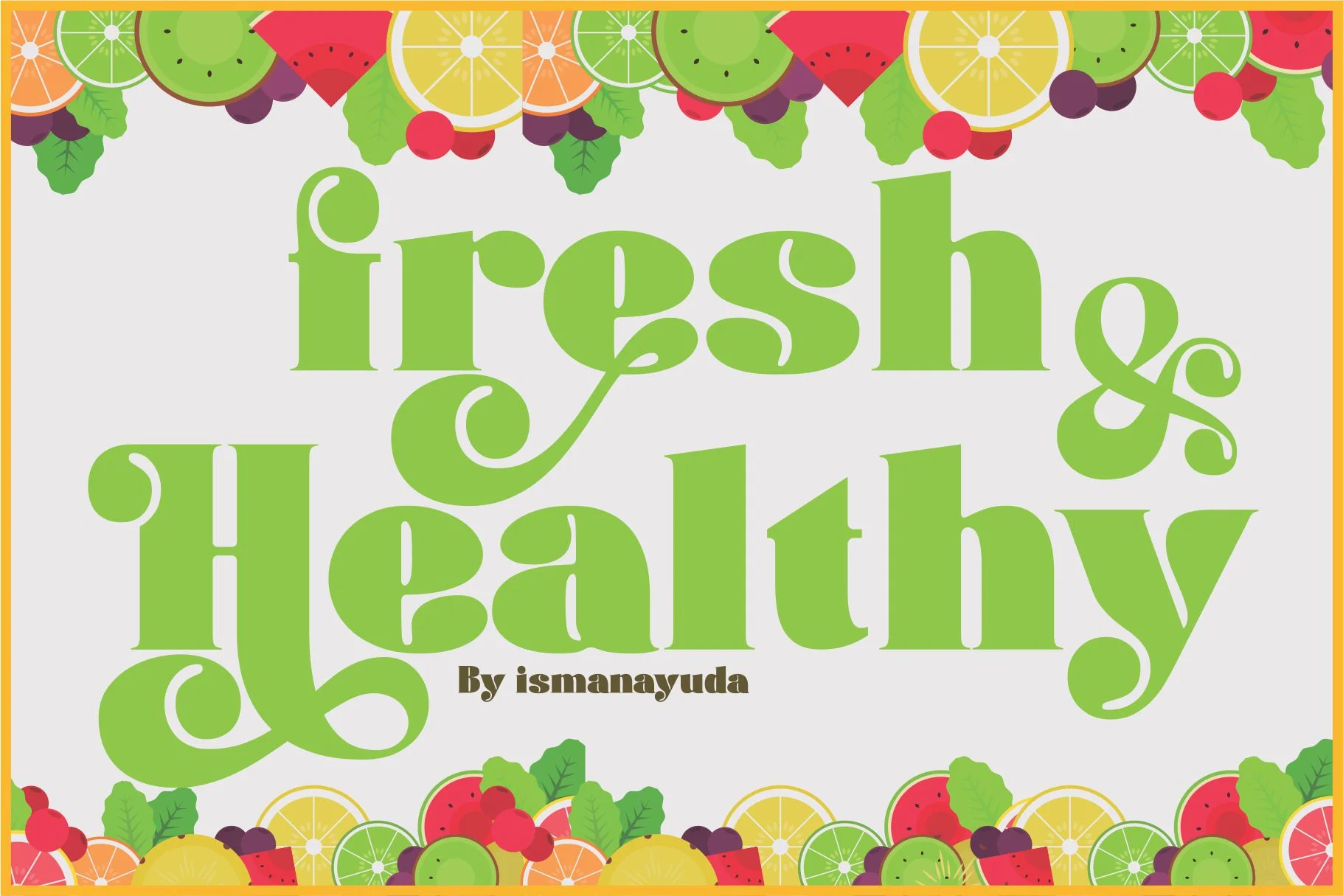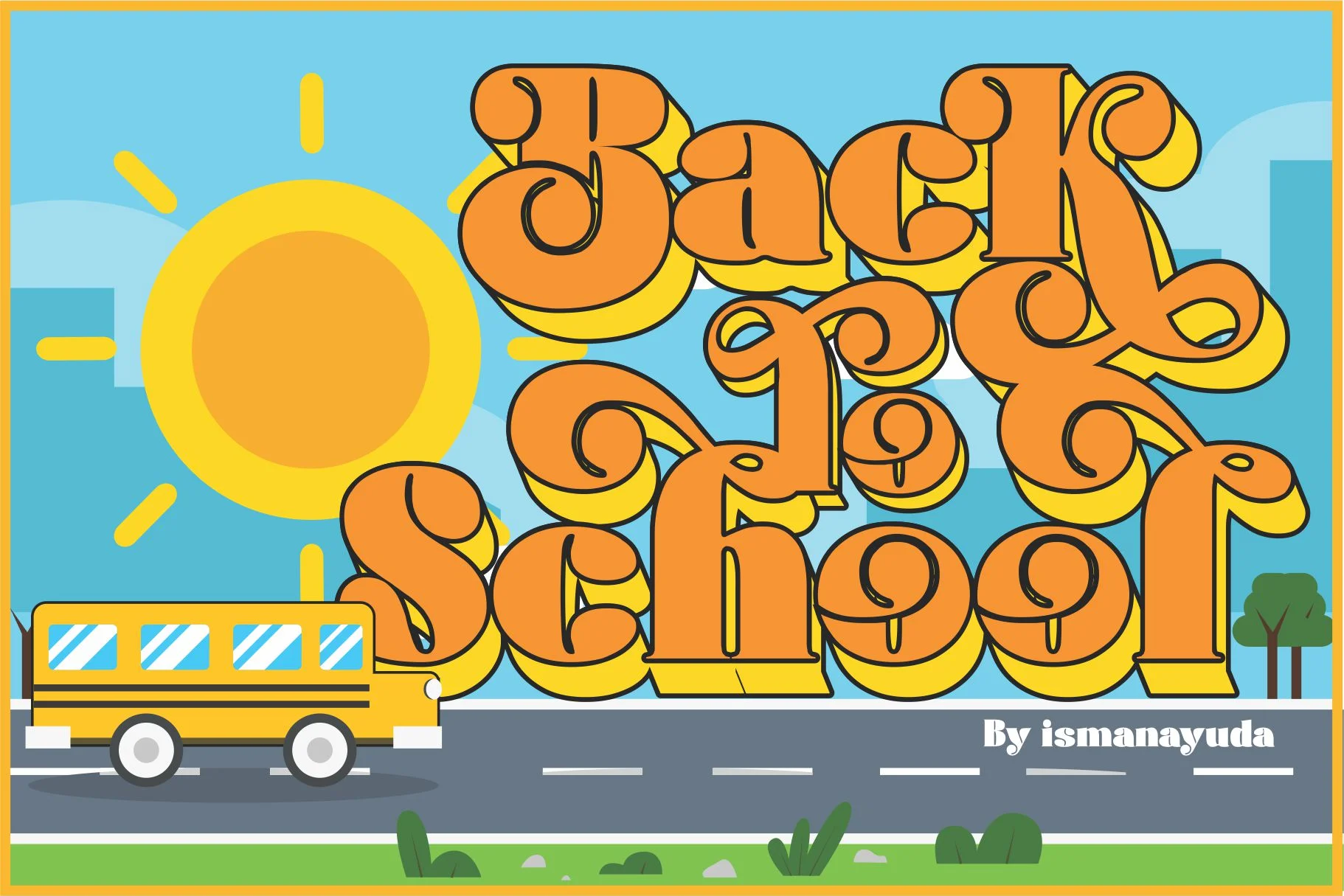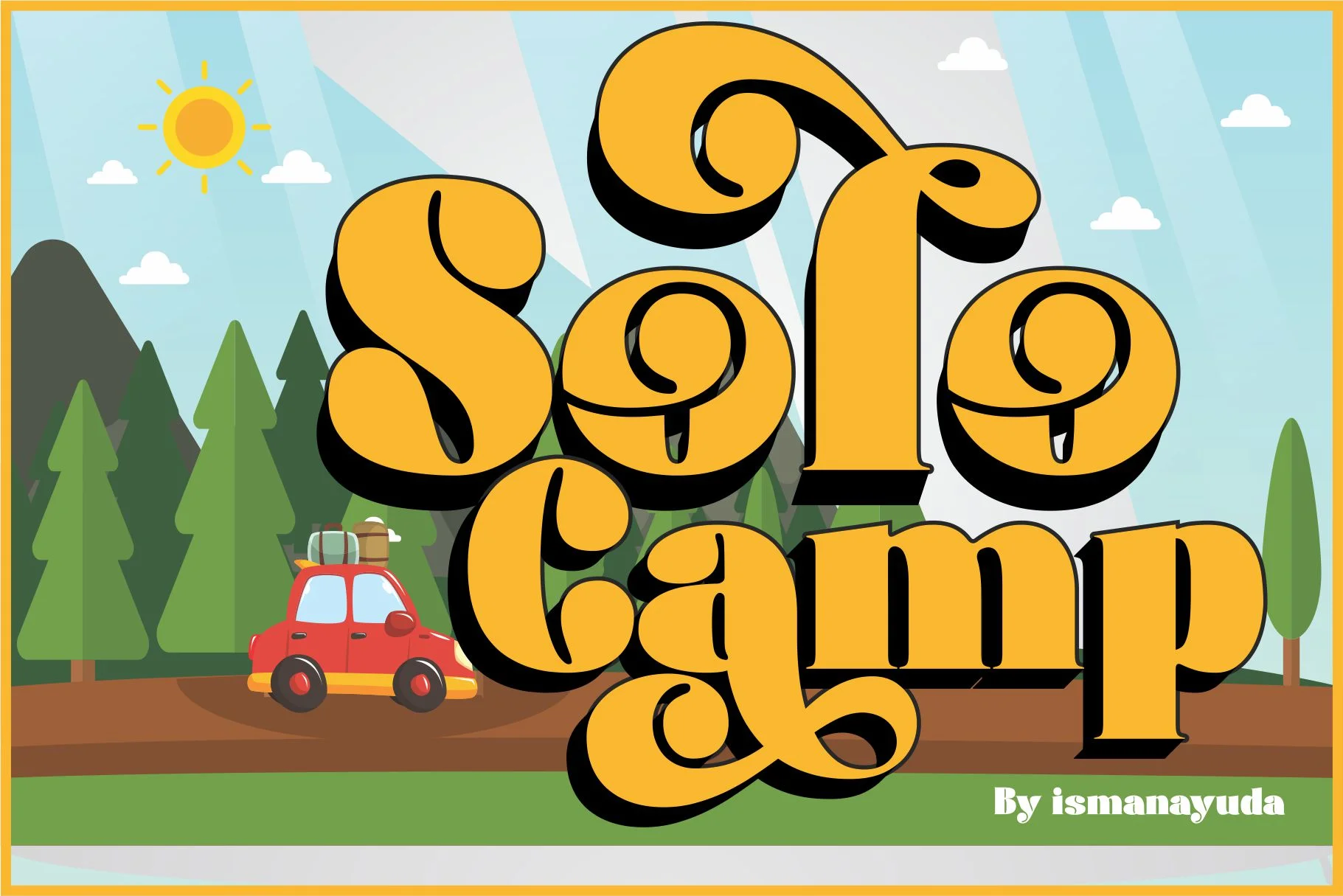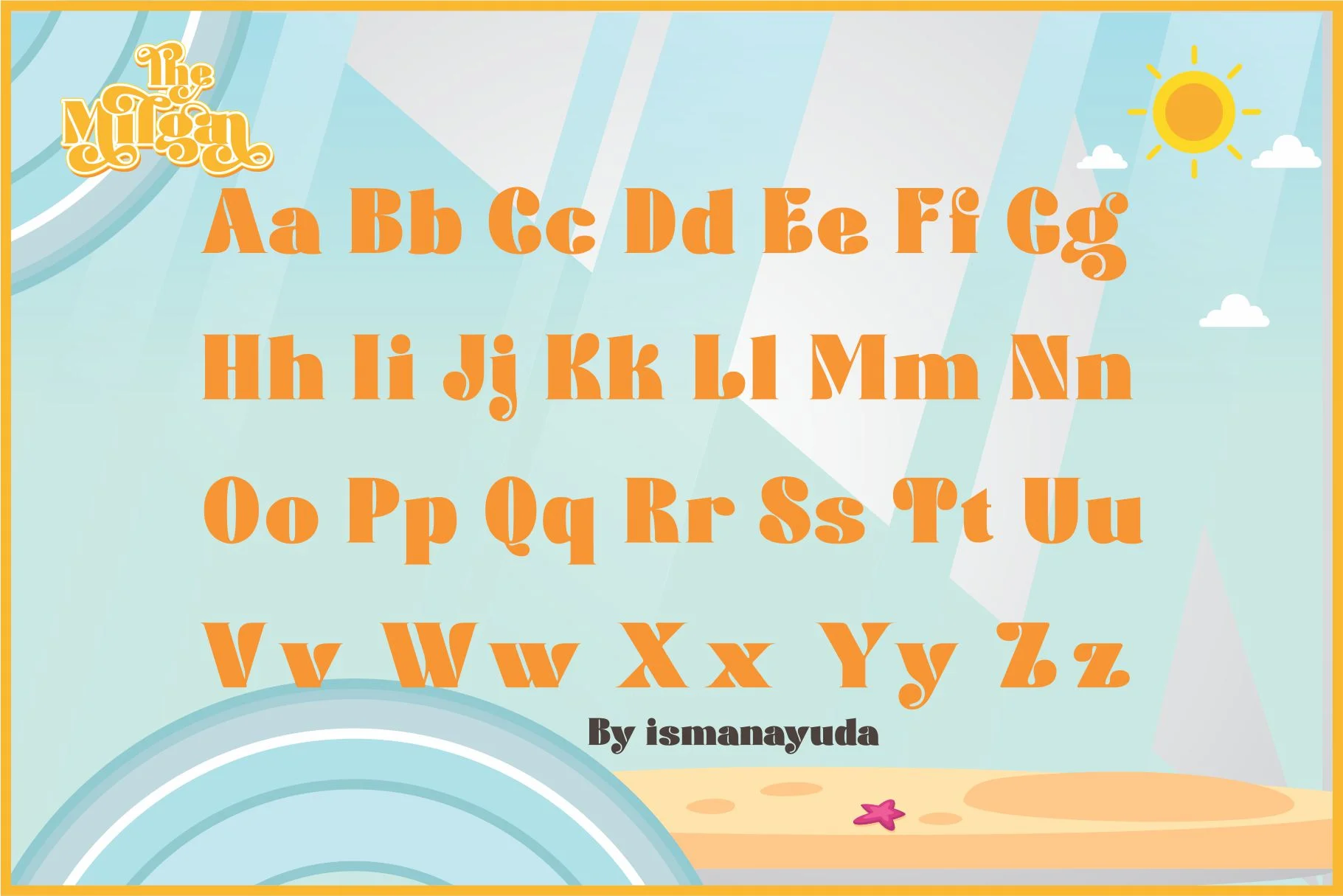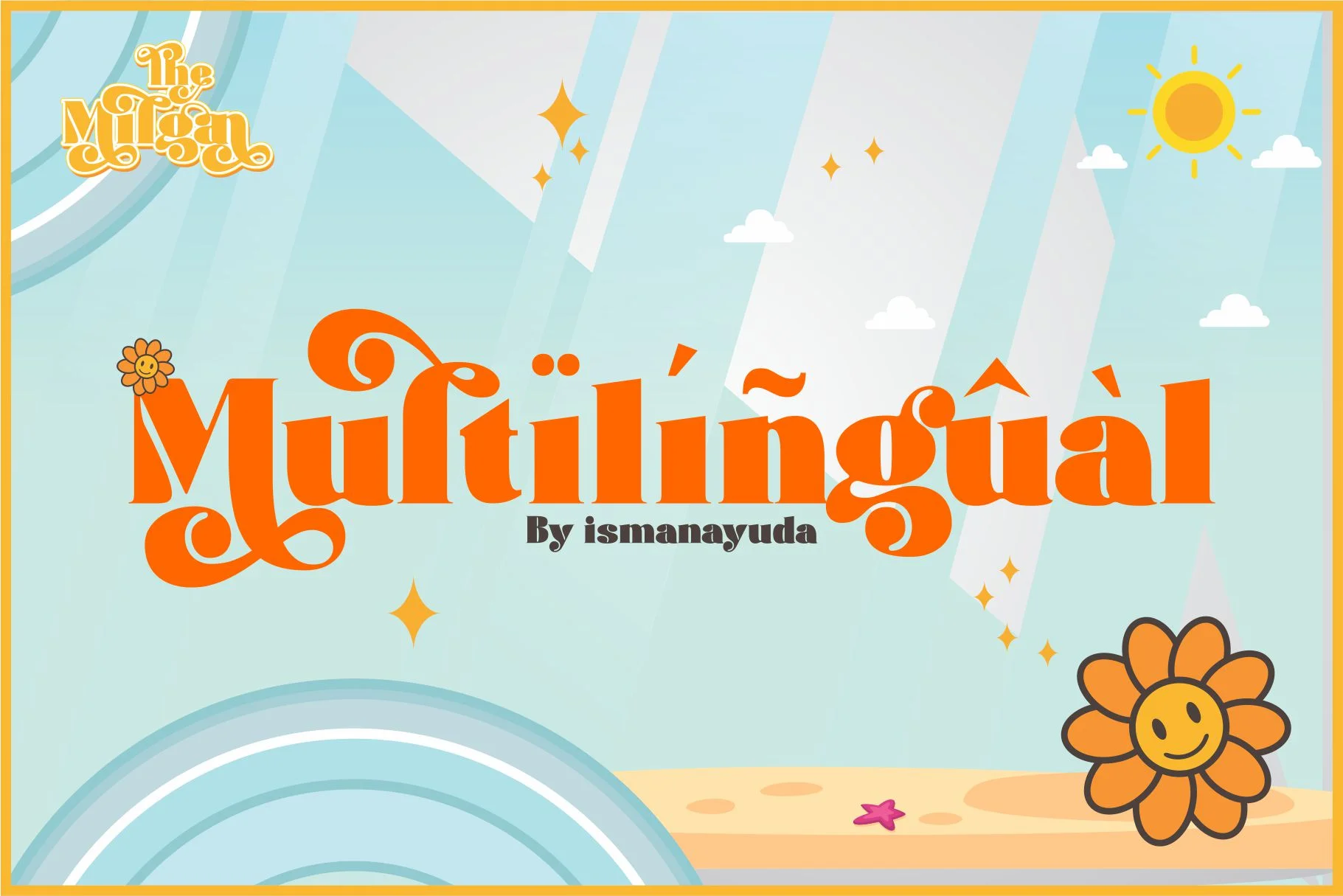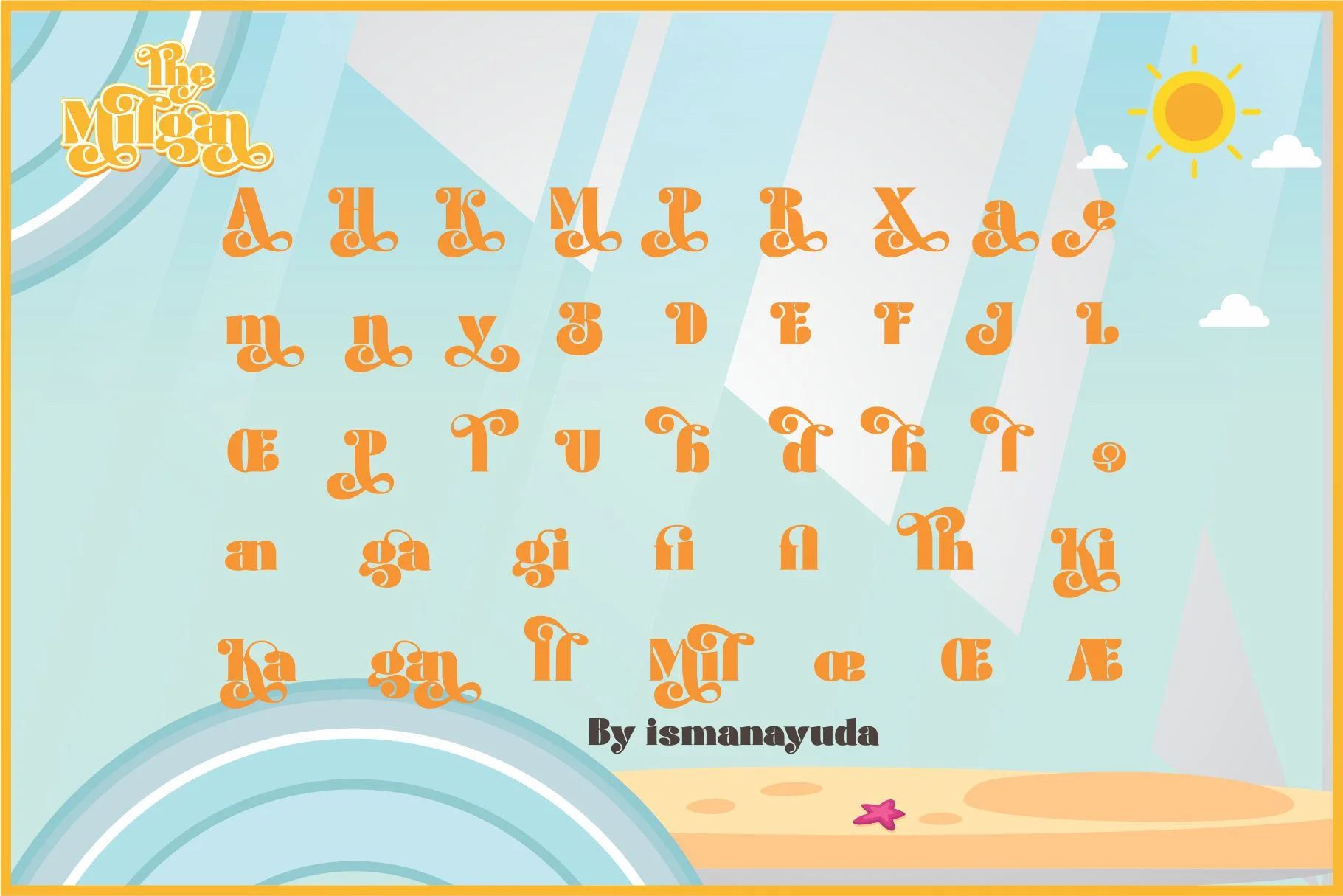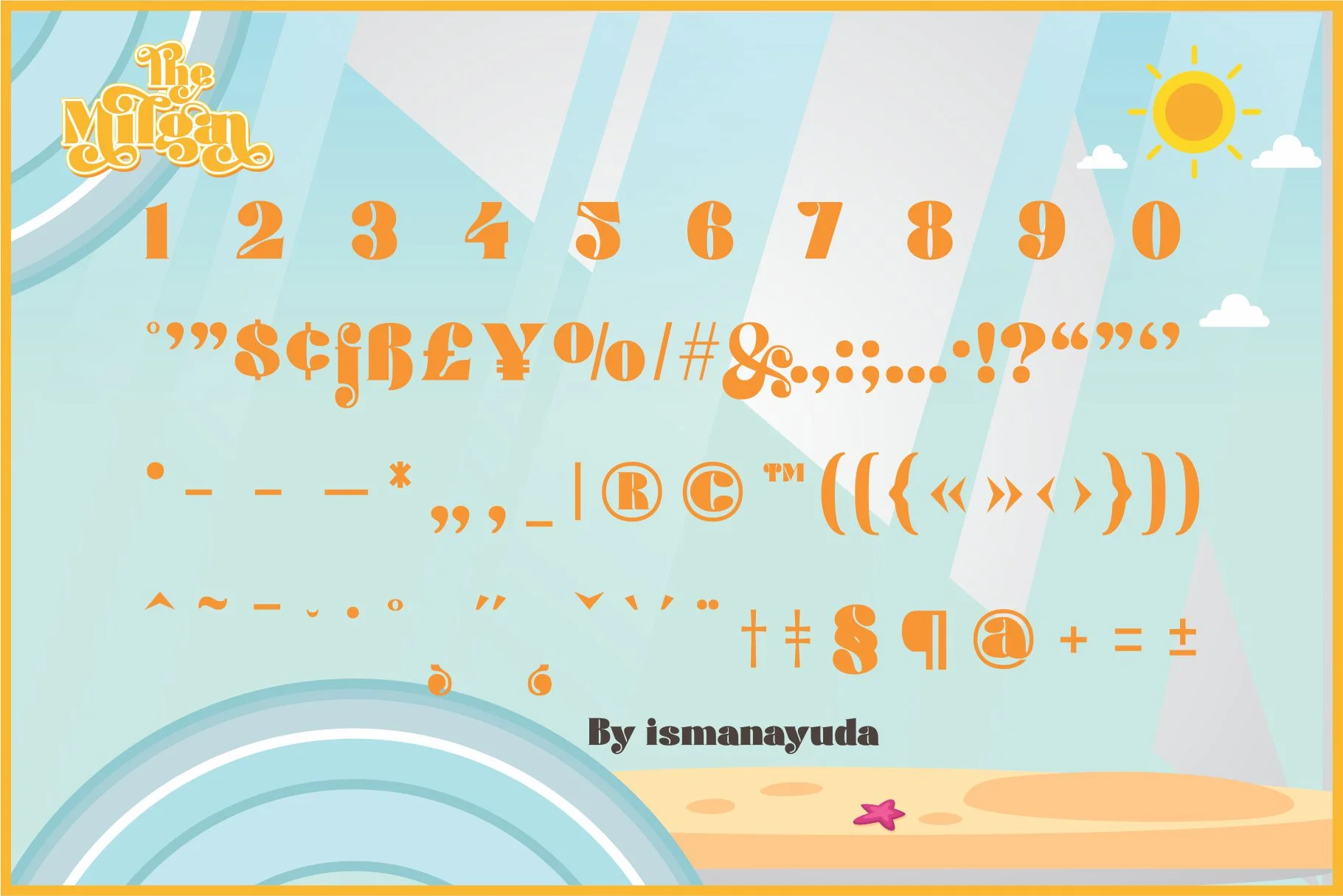
The Milgan
The Milgan is a decorative typeface characterized by its playful, hand-crafted aesthetic and bold, retro influence. It features thick, high-contrast letterforms with dramatic, rounded swashes and "funny flow" curves that give it a sense of movement and cheerfulness. The design blends 70s-inspired groovy vibes with modern display sensibilities, making it stand out as a "true favorite" for creative projects.
Because of its expressive and friendly appearance, it is particularly well-suited for high-impact visual needs like holiday posters, children's school materials, food branding, and merchandise.